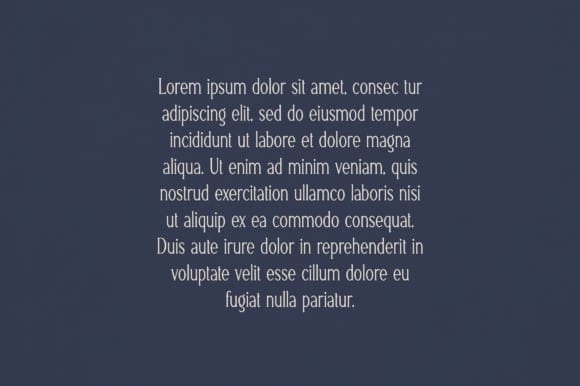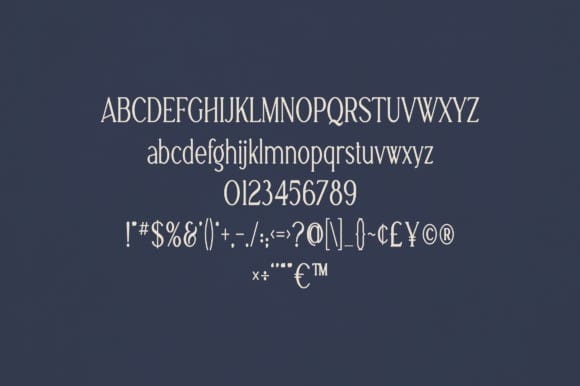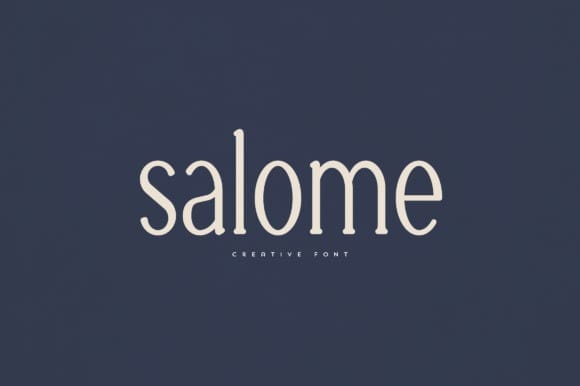
Salome Font
Salome Font is an elegant and versatile font that will make your typography truly unique! It will enchant every logo, branding, headline, or plain text!